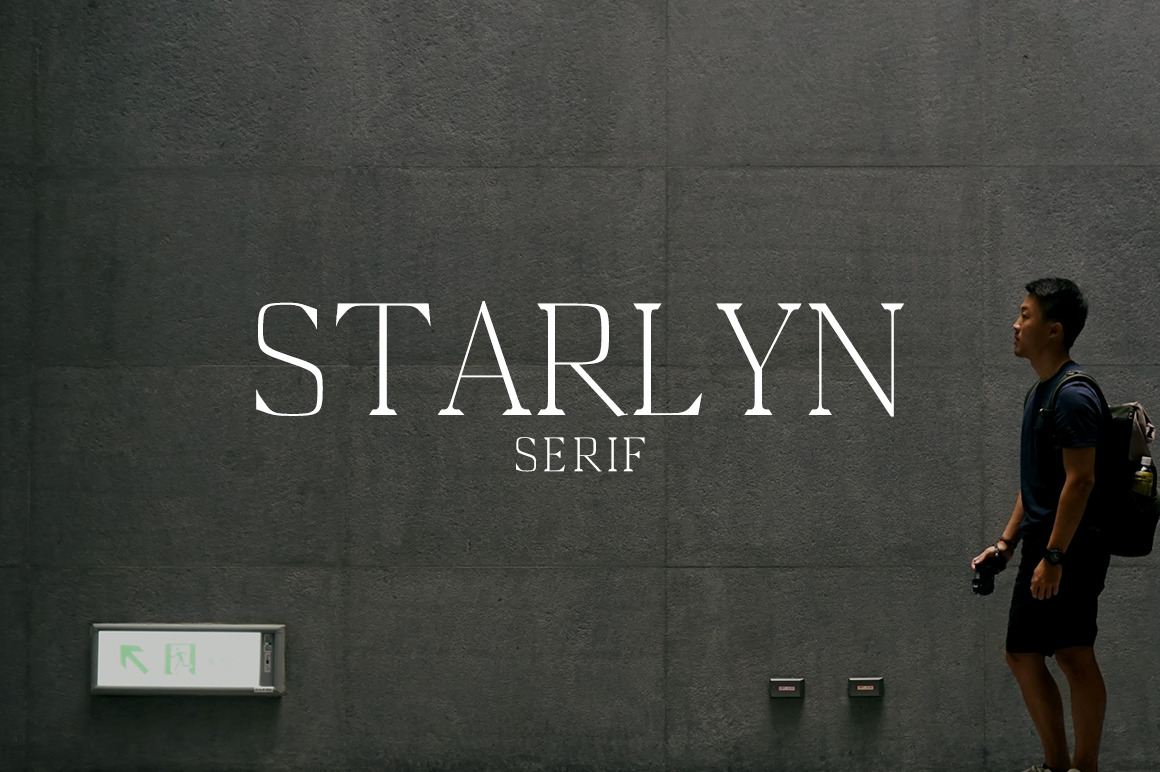
Starlyn Serif 4 Font Family
Starlyn Serif Font Family is decorative and beautiful serif font family of 5 weights and it features unique and modern serif look and feel.
Perfect for gorgeous logos & titles, layouts & content, or large & small scale, It looks gorgeous in all caps with a wide-set spacing if you want to try a classy look, or beautiful on its own in capital and lowercase letters for something completely timeless.
- Font Weight: Regular, Medium, Bold and Black
- Extras: Uppercase Multilingual Letters, Lowercase Multilingual Letters, Numbers & Punctuation + Alternatives.